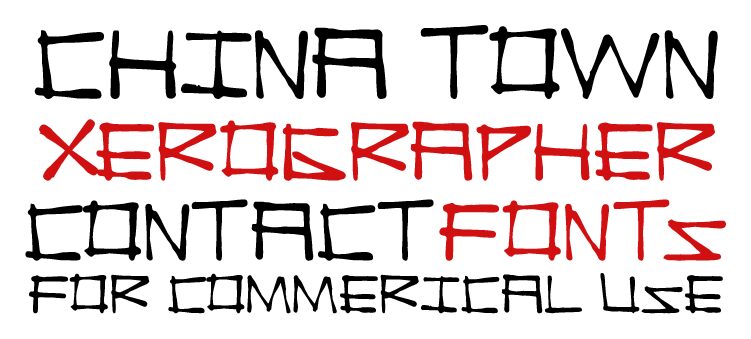
China Town by Xerographer Fonts is a free handwritten display font with tall, angular letters and an improvised sign-painted look. Its uneven strokes form sharp joins, open gaps, and striking triangular shapes.
Street culture and independent music suit its raw construction, especially on gig posters, skate merchandise, and album artwork. In restaurant branding or festival graphics, the lettering can become part of an illustrated storefront sign rather than serving as neutral text.